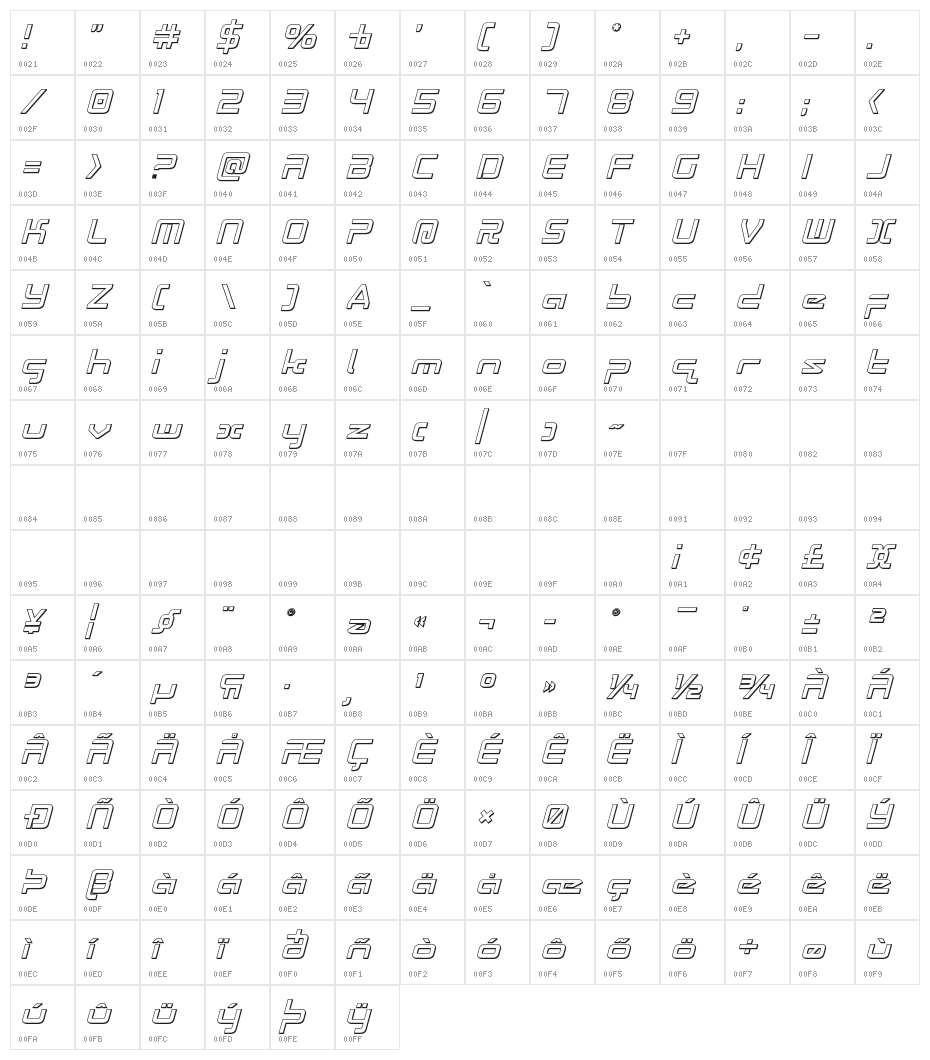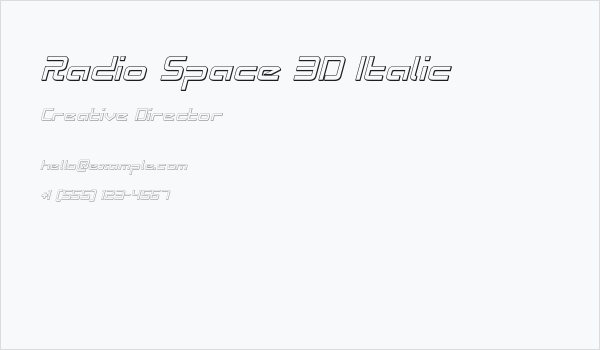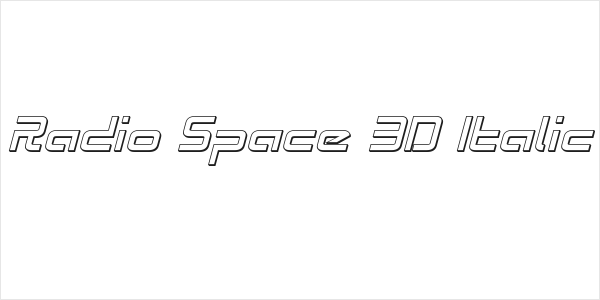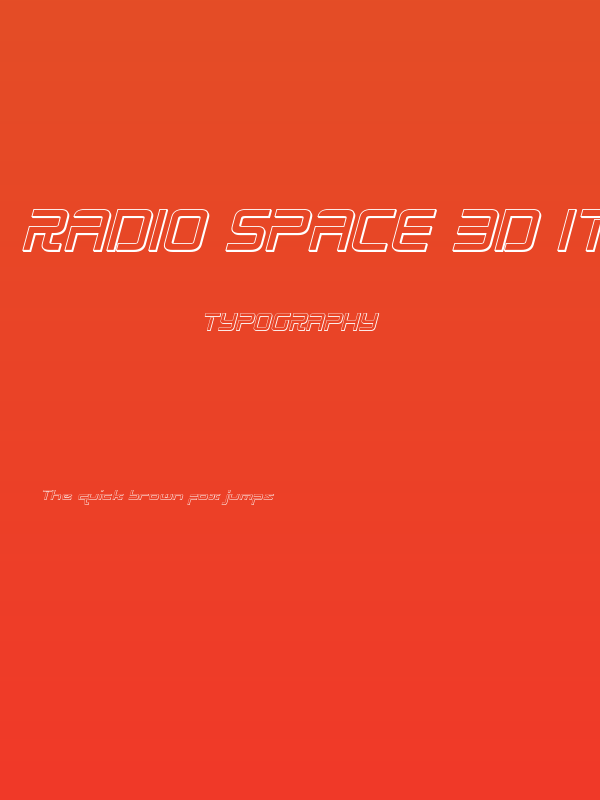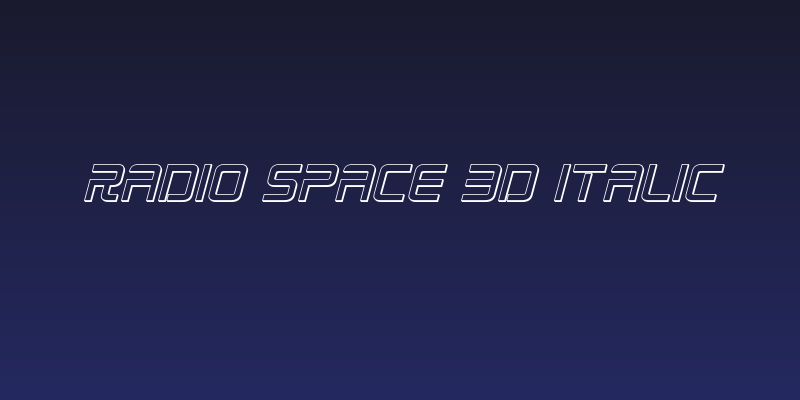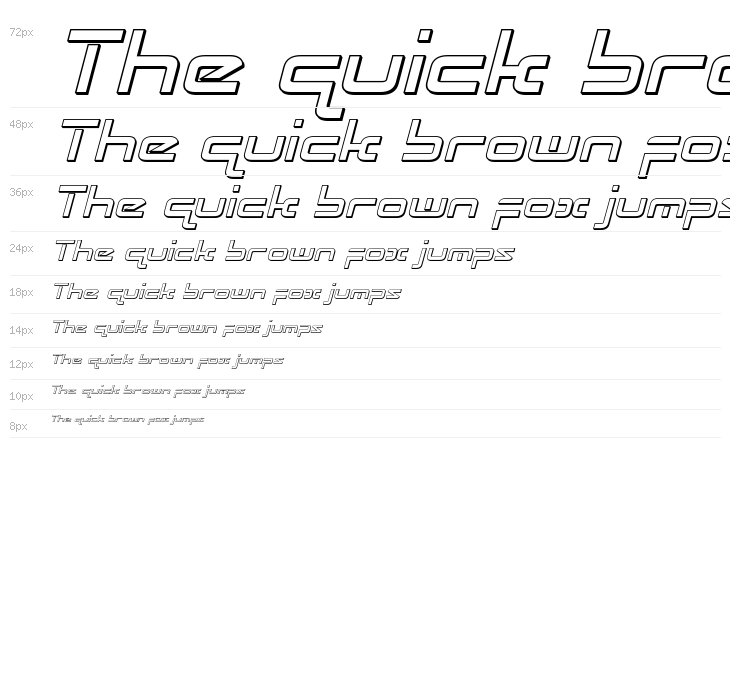
Radio Space 3D Italic Font
Radio Space 3D Italic Description
This font features a futuristic, three-dimensional design with a distinct italic slant. The characters are outlined, giving them a hollow appearance that enhances the 3D effect. Each letter is constructed with clean, angular lines, contributing to a modern and tech-inspired aesthetic. The uppercase and lowercase letters maintain a consistent style, with the lowercase letters slightly more rounded. Numerals and special characters follow the same design principles, ensuring uniformity across all glyphs. The font's unique style makes it suitable for projects requiring a bold and innovative look.
| Proposed Projects | Ideal for sci-fi themed projects, tech branding, video game titles, and futuristic posters. |